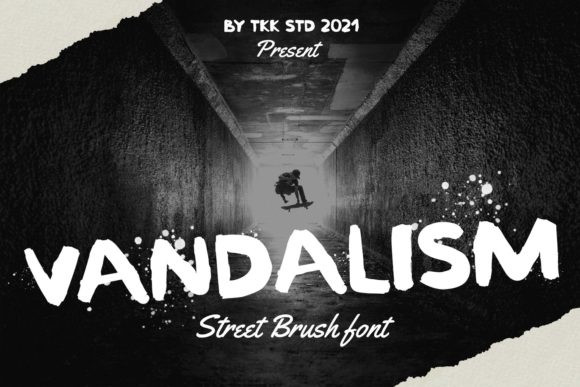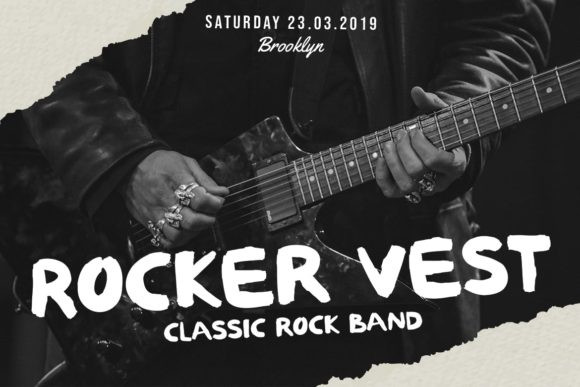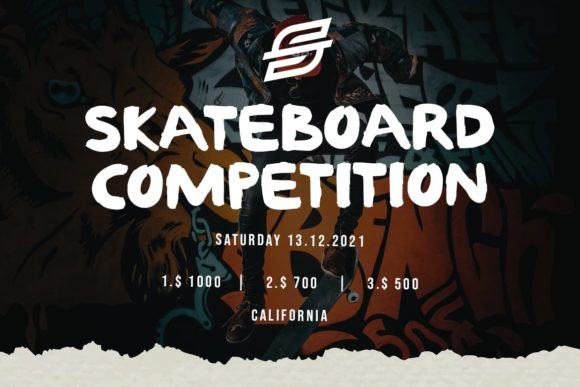
Vandalism Font
Vandalism is a bold, urban styled, brushed display font. This original look will appeal to a wide range of crafty ideas, from letterheads and titles, to stationery.